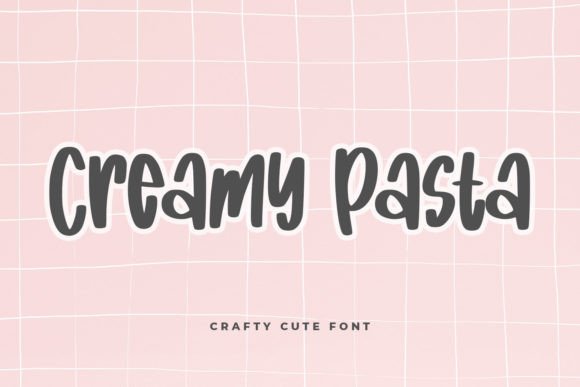
Creamy Pasta Font: A Sweet and Friendly Handwritten Font for Creative Projects
Creamy Pasta is a delightful handwritten font that has captured the hearts of designers and crafty enthusiasts alike. Its sweet and friendly demeanor makes it an ideal choice for a wide range of creative projects, from notes and kid’s wear to branding, quotes, logos, and more. In this article, we’ll dive into the world of Creamy Pasta font, exploring its features, uses, and benefits.
What is Creamy Pasta Font?
Creamy Pasta is a carefully crafted handwritten font that exudes warmth and approachability. Its unique lettering style is reminiscent of a child’s scribbles, making it perfect for projects that require a playful and innocent touch. The font’s soft, rounded edges and flowing curves create a soothing visual experience, ideal for designs that aim to evoke emotions and connections.
Features of Creamy Pasta Font
- Handwritten style: Creamy Pasta boasts a genuine handwritten look, making it perfect for designs that require a personal touch.
- Sweet and friendly: The font’s playful and approachable nature makes it suitable for projects that aim to appeal to a younger audience or evoke a sense of nostalgia.
- Versatile: Creamy Pasta can be used for a wide range of creative projects, from digital designs to print materials.
- Easy to read: The font’s clear and flowing lettering ensures that your message is conveyed with ease, making it perfect for quotes, notes, and other text-based designs.
Uses of Creamy Pasta Font
Creamy Pasta font is an incredibly versatile typeface that can be used for various creative projects, including:
- Notes and journals: Add a personal touch to your notes and journals with Creamy Pasta’s sweet and friendly lettering.
- Kid’s wear and accessories: Create adorable designs for kid’s clothing, bags, and accessories that are sure to delight both kids and parents.
- Branding and logos: Use Creamy Pasta to create a unique and memorable brand identity that stands out from the crowd.
- Quotes and typography: Add a touch of elegance and sophistication to your quotes and typography designs with Creamy Pasta’s flowing curves.
- T-shirt and tote bag designs: Create eye-catching designs for t-shirts and tote bags that are perfect for everyday wear.
- Cards and invitations: Add a personal touch to your cards and invitations with Creamy Pasta’s warm and inviting lettering.
- Banners and social media: Use Creamy Pasta to create engaging banners and social media graphics that capture attention and evoke emotions.
Benefits of Using Creamy Pasta Font
Using Creamy Pasta font offers several benefits, including:
- Unique and distinctive: Creamy Pasta’s handwritten style sets it apart from other fonts, ensuring your designs stand out from the crowd.
- Emotional connection: The font’s sweet and friendly nature helps create an emotional connection with your audience, making your designs more relatable and memorable.
- Versatility: Creamy Pasta can be used for a wide range of creative projects, making it a valuable addition to your font library.
- Ease of use: The font’s clear and flowing lettering ensures that your message is conveyed with ease, making it perfect for designs that require a high level of legibility.
Tips for Using Creamy Pasta Font
To get the most out of Creamy Pasta font, follow these tips:
- Pair with contrasting fonts: Combine Creamy Pasta with contrasting fonts to create visual interest and hierarchy in your designs.
- Experiment with colors: Try out different colors and textures to add depth and personality to your designs.
- Use for headlines and titles: Creamy Pasta is perfect for headlines and titles, adding a touch of elegance and sophistication to your designs.
- Don’t overuse: Use Creamy Pasta judiciously, as overusing the font can make your designs look cluttered and overwhelming.
Creamy Pasta font is a sweet and friendly handwritten typeface that is perfect for creative projects that require a personal touch. Its unique lettering style, versatility, and ease of use make it an ideal choice for designers, crafty enthusiasts, and anyone looking to add a touch of warmth and approachability to their designs. With its wide range of uses and benefits, Creamy Pasta font is sure to become a valuable addition to your font library.